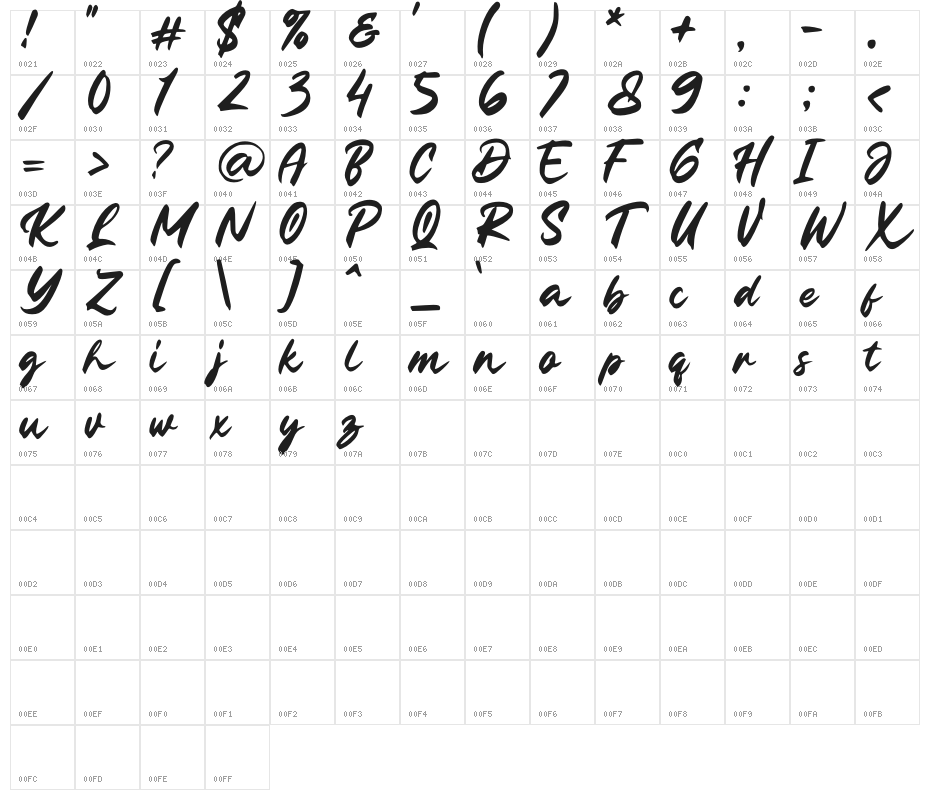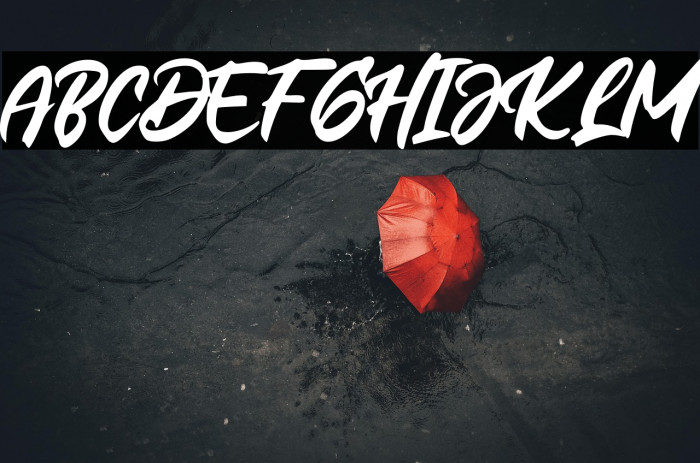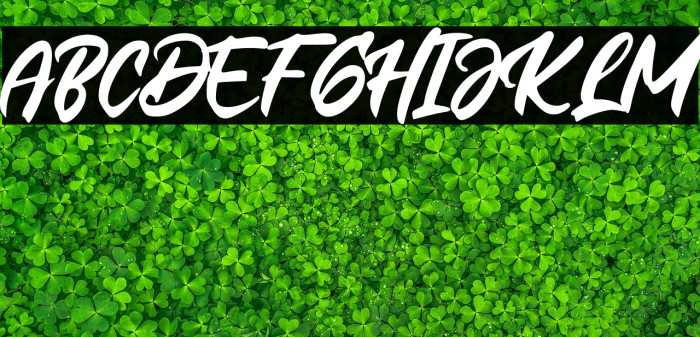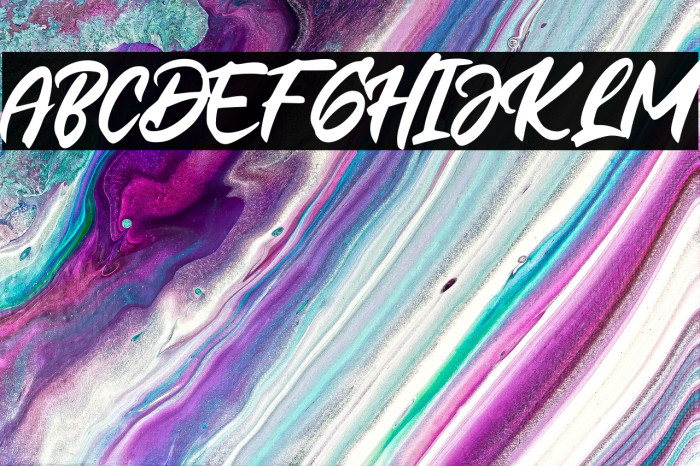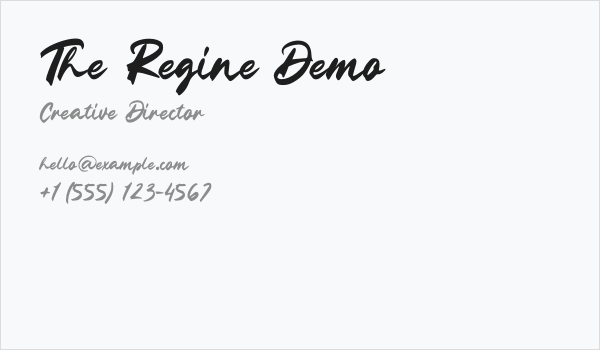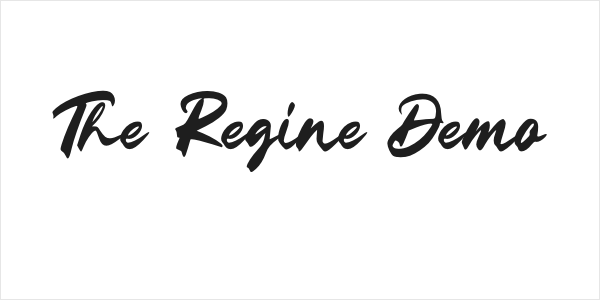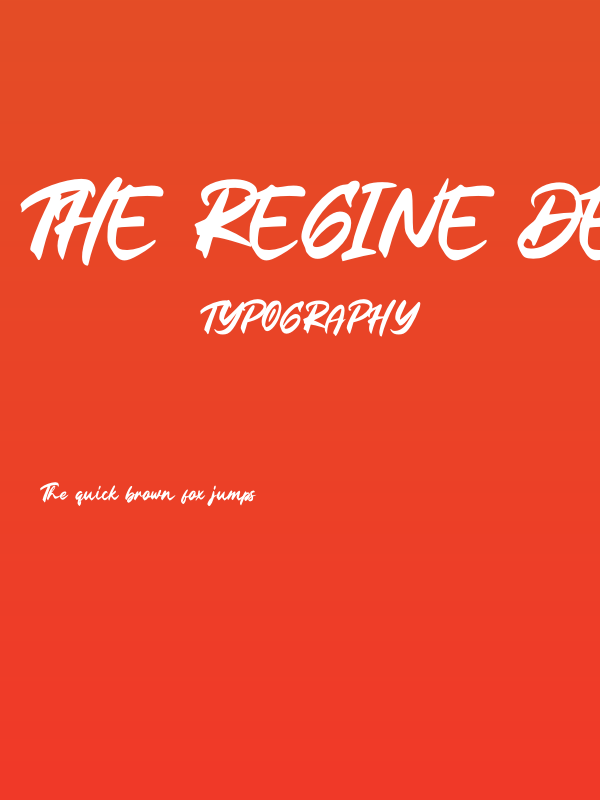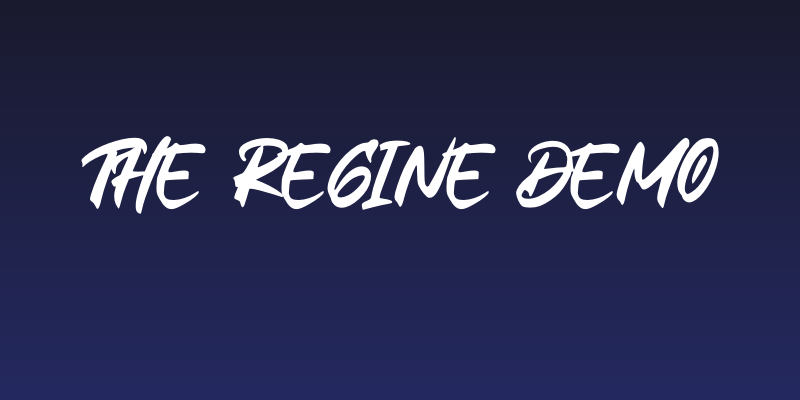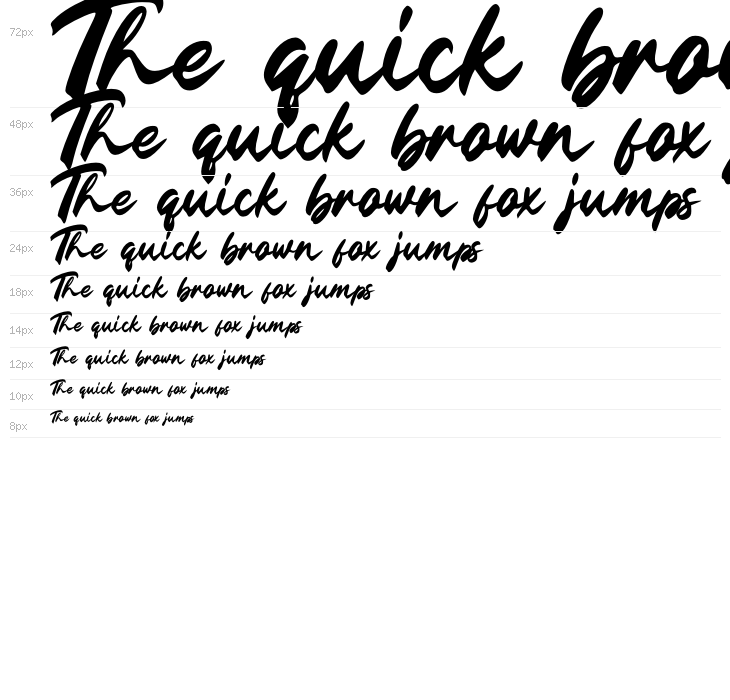
The Regine Demo Font
The Regine Demo Description
This font features a dynamic and expressive script style, characterized by its bold and fluid strokes. The uppercase letters exhibit a strong presence with their sweeping curves and dramatic flair, while the lowercase letters maintain a consistent flow, enhancing readability. The numerals are equally bold, integrating seamlessly with the alphabetic characters. Special characters are crafted with the same attention to detail, ensuring a cohesive look across all glyphs. The overall design exudes a sense of energy and movement, making it suitable for projects that require a touch of elegance and personality.